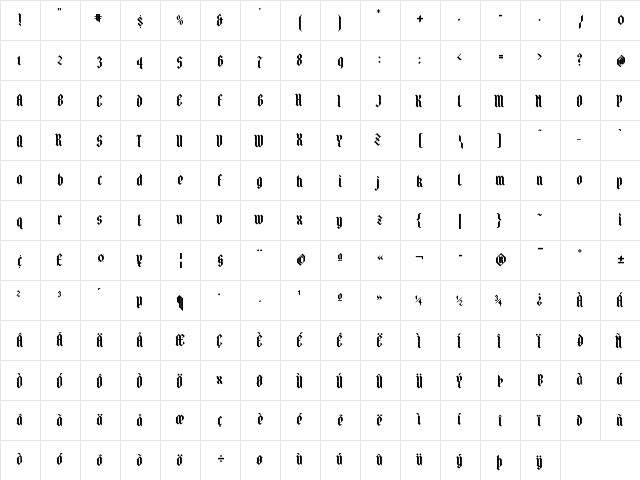
Mister Pablo Regular
Design Context for Mister Pablo Typeface
Mister Pablo is a composed and adaptable typeface that performs quietly and consistently across a wide range of design contexts.